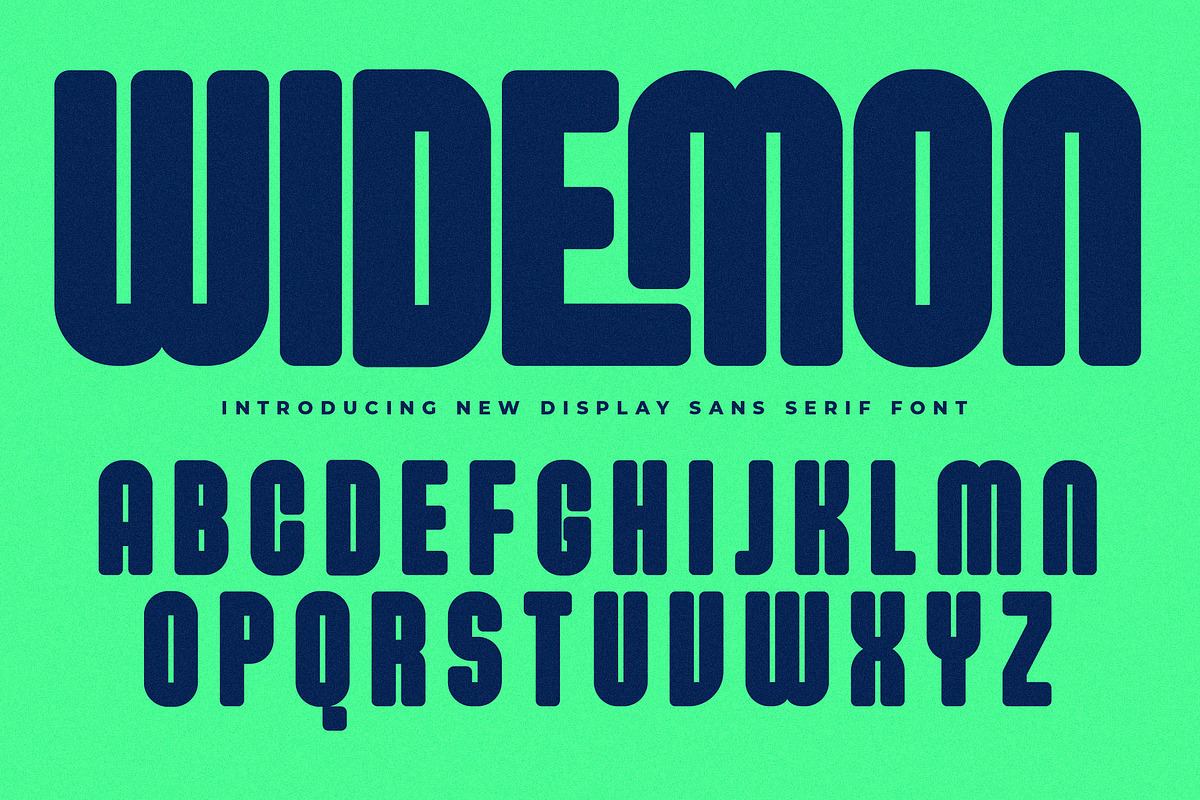
Widemon New Display Sans Serif Font Free Download is a modern, bold typeface designed with sharp, clean lines and geometric precision. Its stylish yet straightforward design makes it perfect for headlines, logos, branding, posters, websites, and any project that needs a sleek, professional appearance with a contemporary edge.
The display-style letterforms of Widemon New bring boldness and clarity to your typography, making it ideal for projects that need to stand out. Whether you're designing for tech, fashion, or any high-end brand, this font ensures your text commands attention while maintaining a modern and polished look.